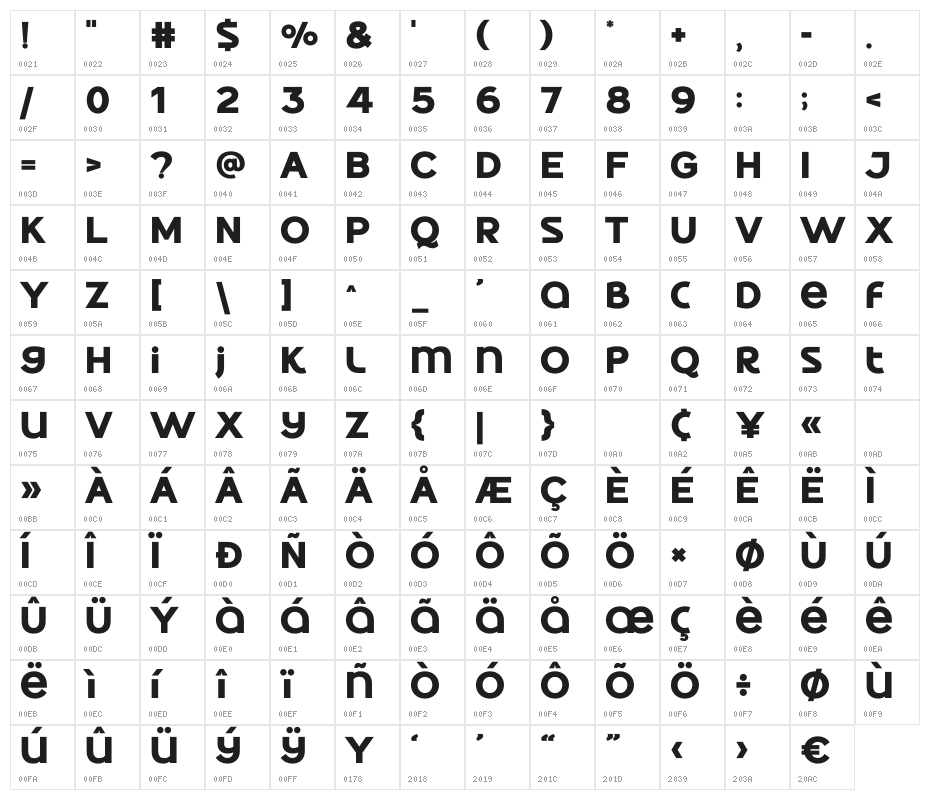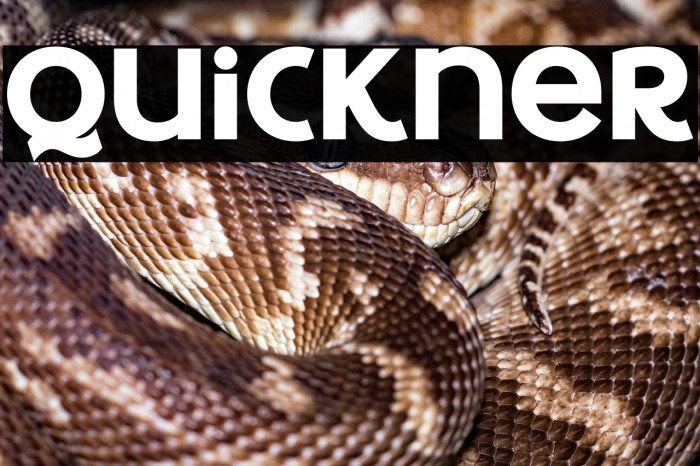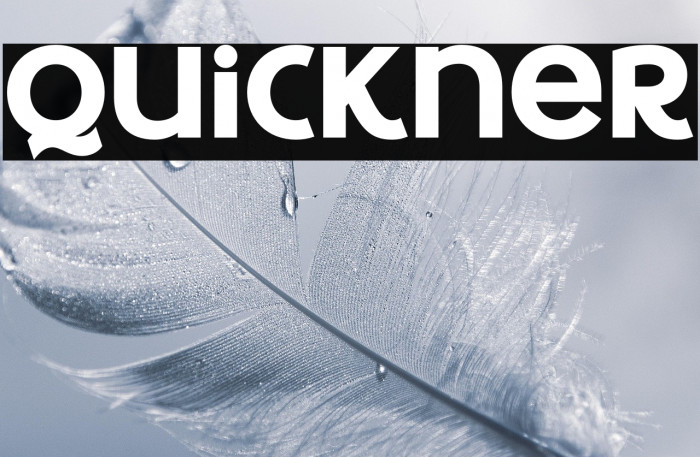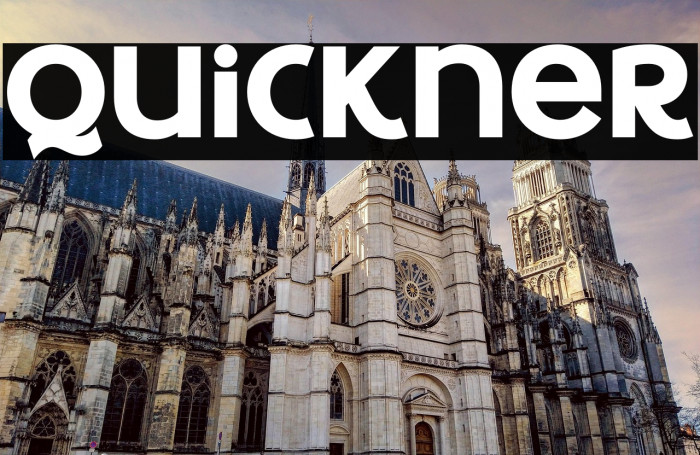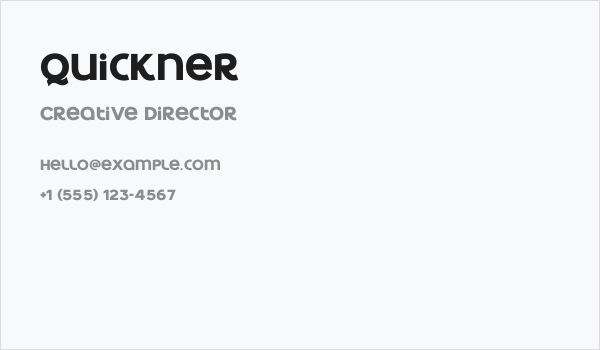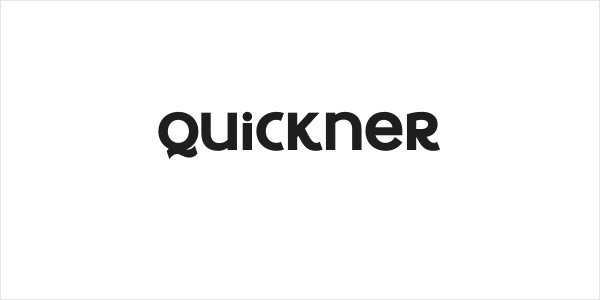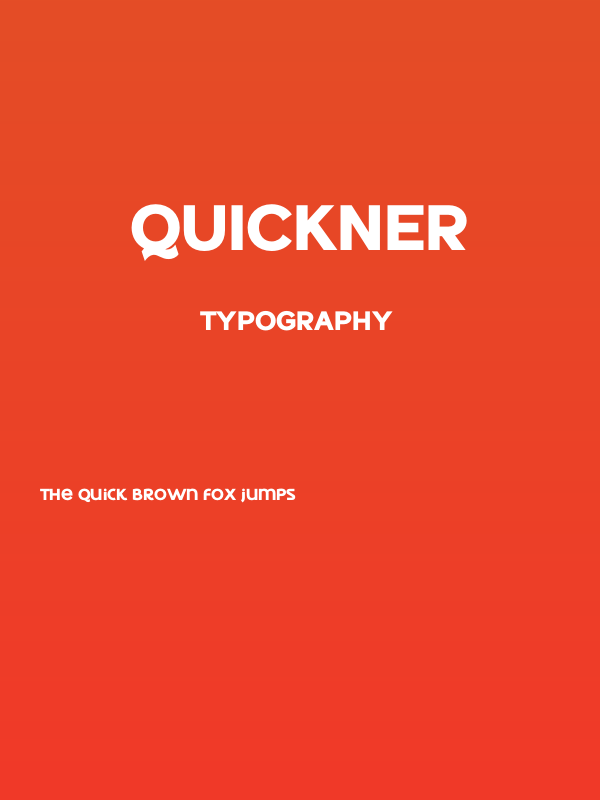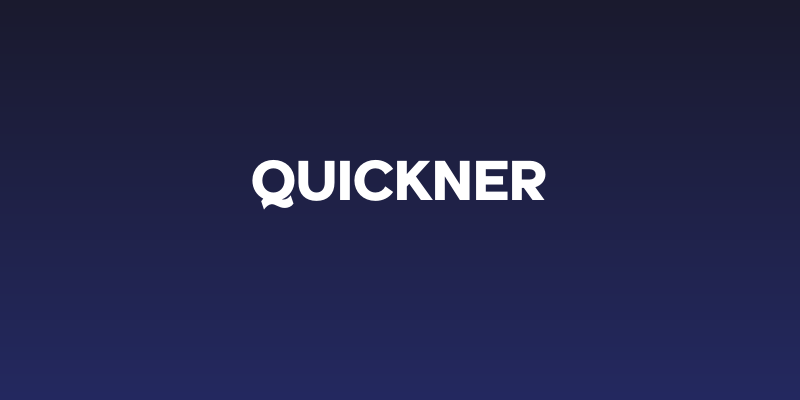
Quickner Font
Quickner Description
This font features a bold and modern design with clean, geometric lines. The uppercase letters are strong and assertive, while the lowercase letters maintain a consistent style with rounded edges that add a touch of softness. The numerals are clear and easy to read, matching the boldness of the alphabet. Special characters are well-integrated, maintaining the overall aesthetic. The font's uniform stroke width and lack of serifs contribute to its contemporary appearance, making it suitable for a variety of digital and print applications.
| Use Case | Headlines, Logos, Branding |
| Proposed Projects | Ideal for branding, advertising, headlines, and digital media where a modern and bold statement is needed. |